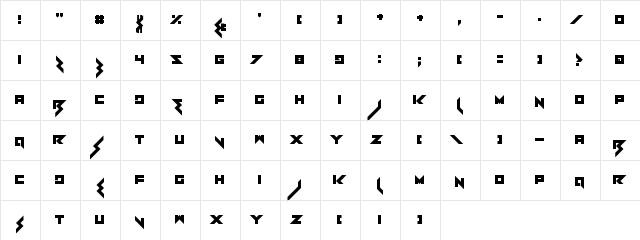
Heartbreaker Regular
Design Context for Heartbreaker Typeface
Heartbreaker is a composed and adaptable typeface that performs quietly and consistently across a wide range of design contexts.